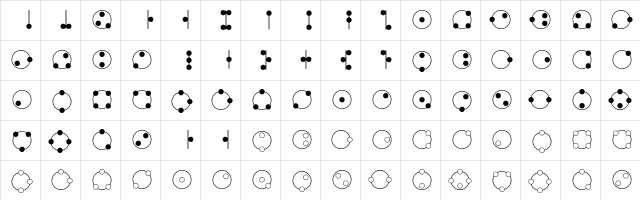
Atomic Circle Font Preview
Atomic Circle
Atomic Circle Font Details
| Style | Circle |
Design Context for Atomic Typeface
Atomic is a composed and adaptable typeface that performs quietly and consistently across a wide range of design contexts.